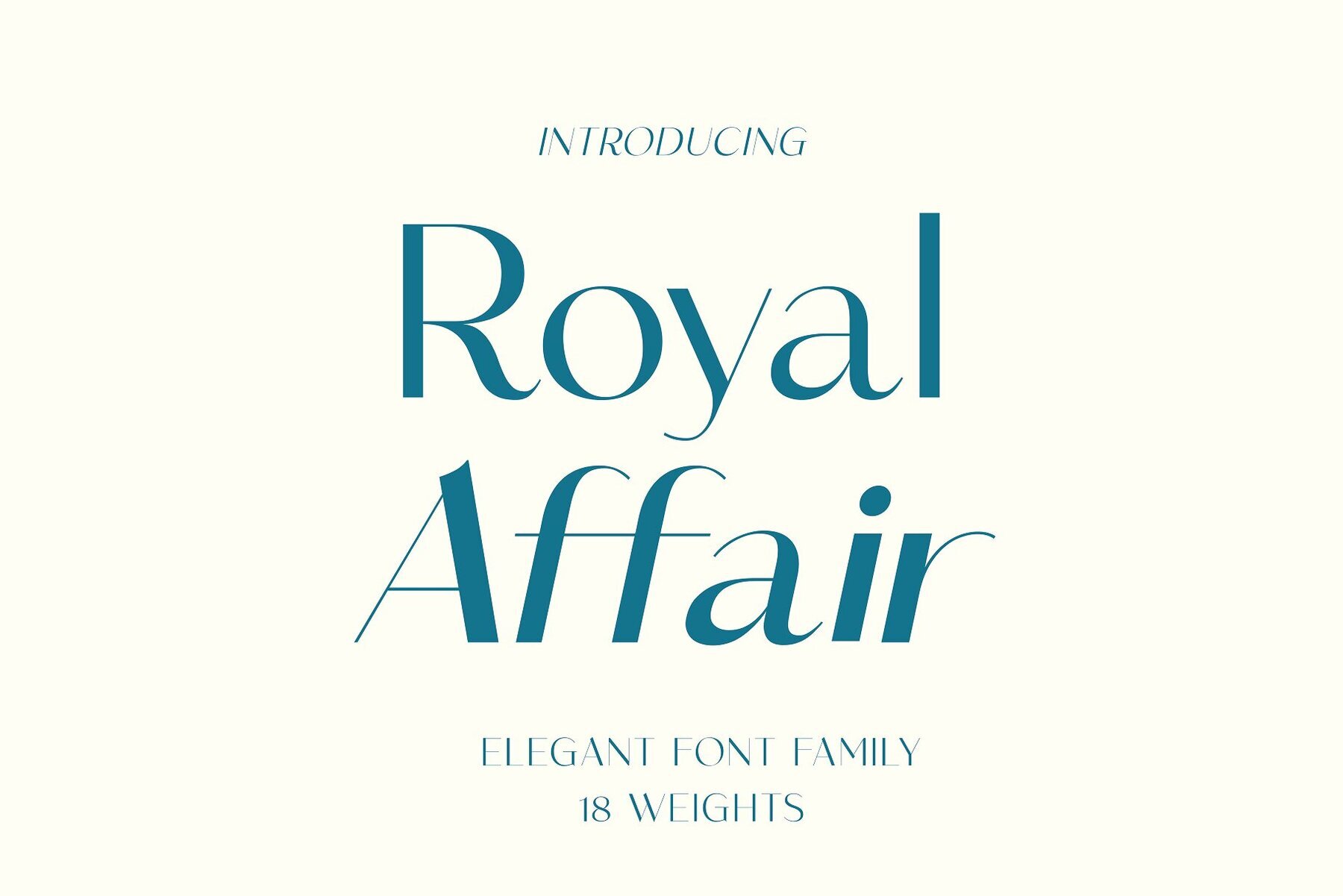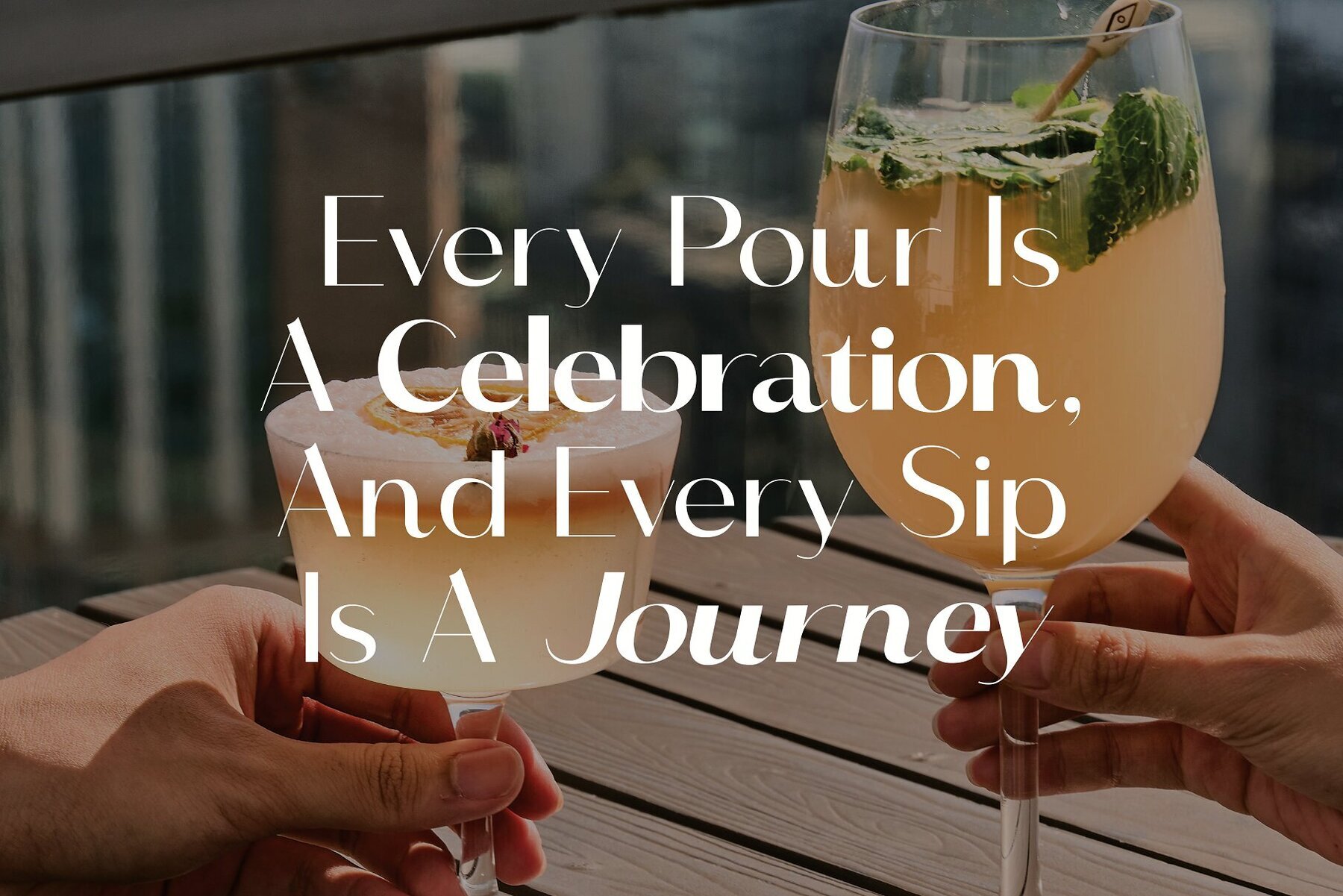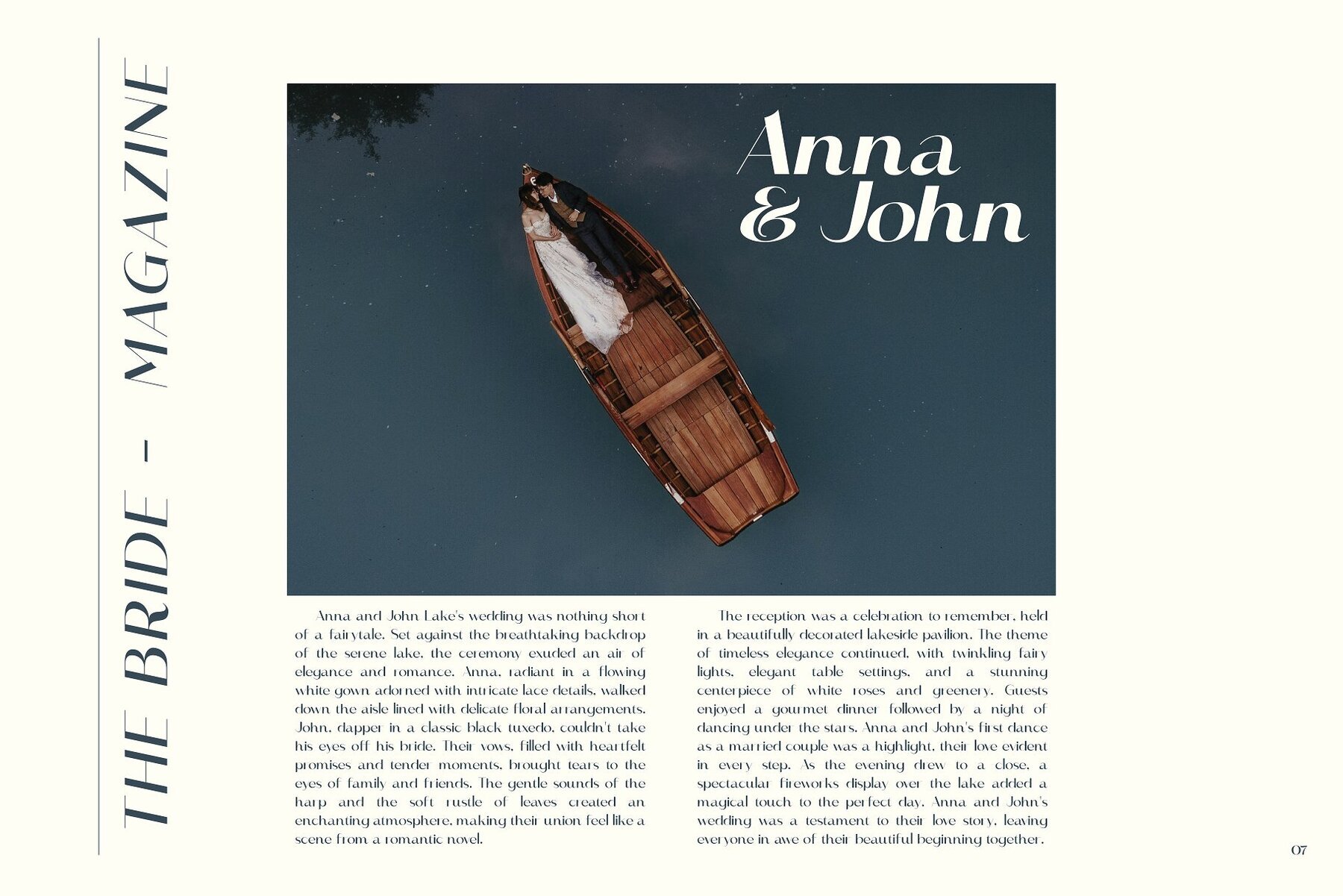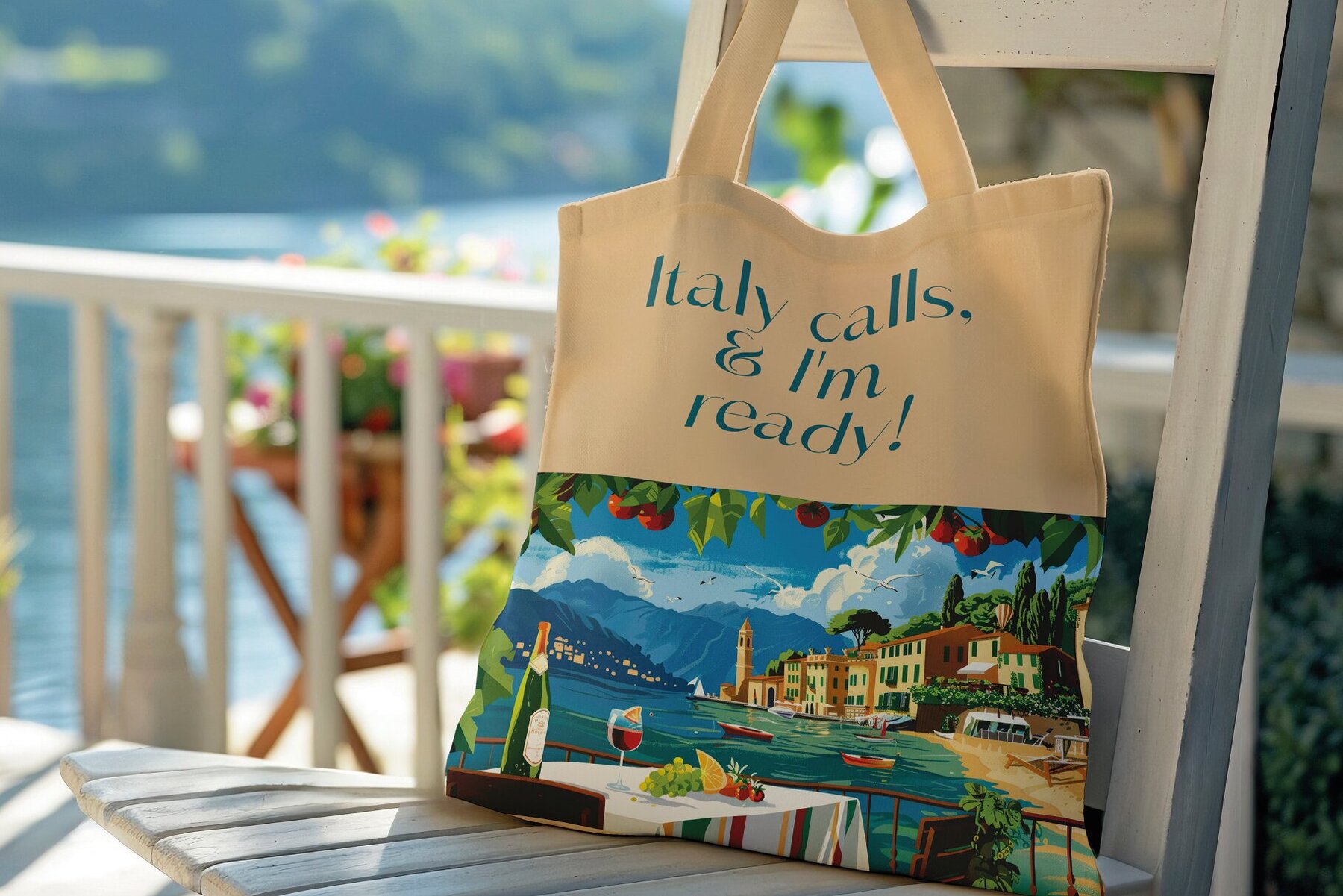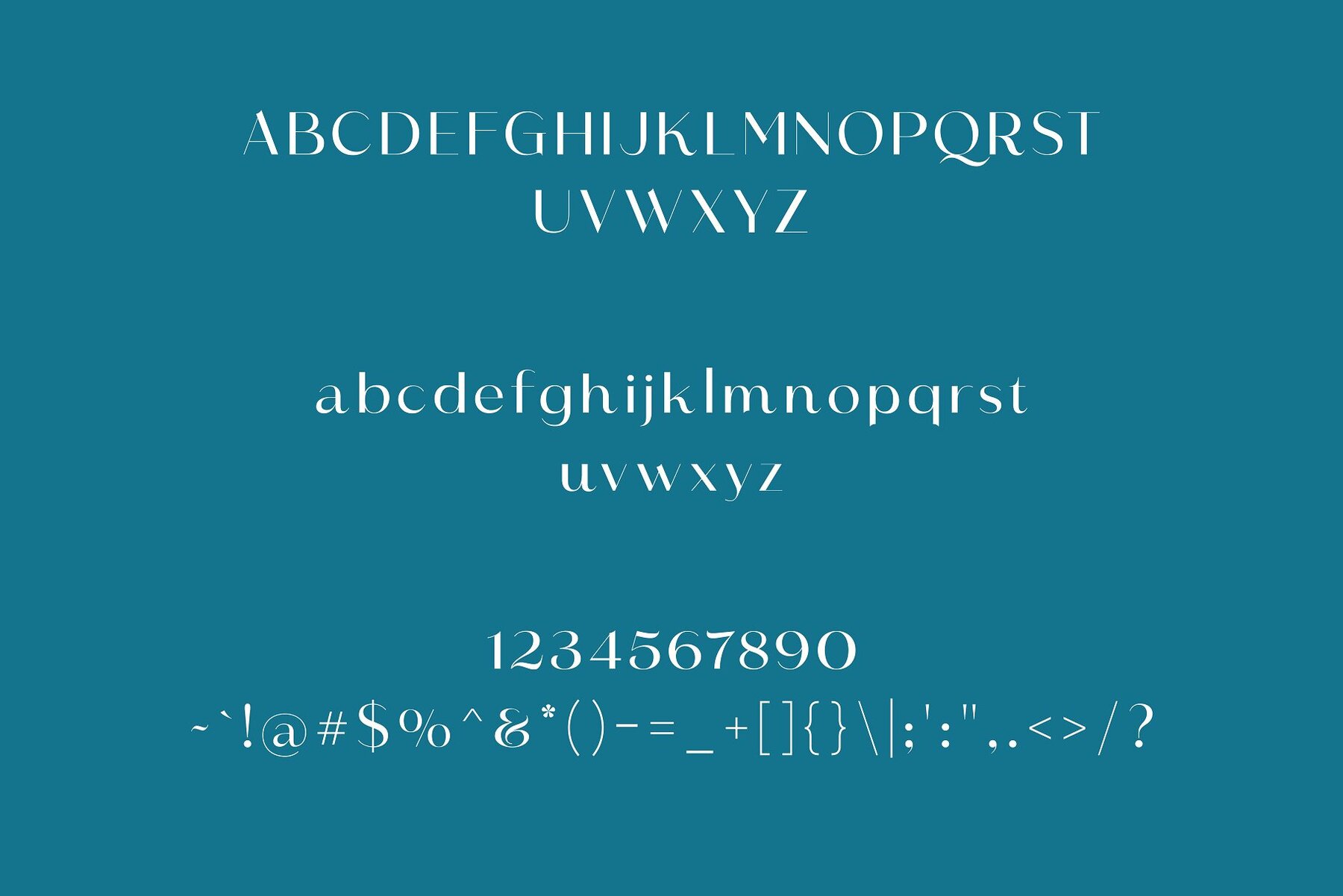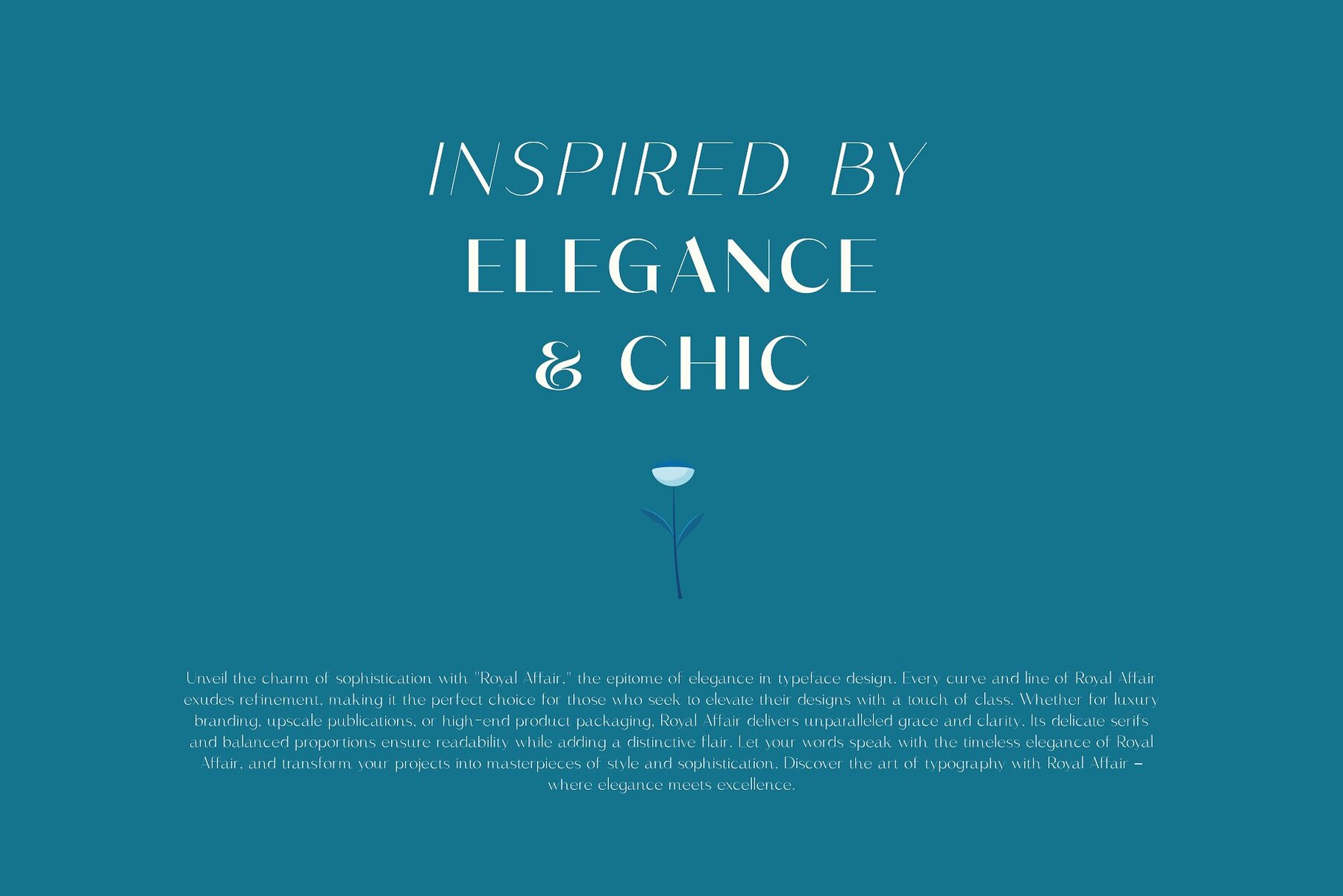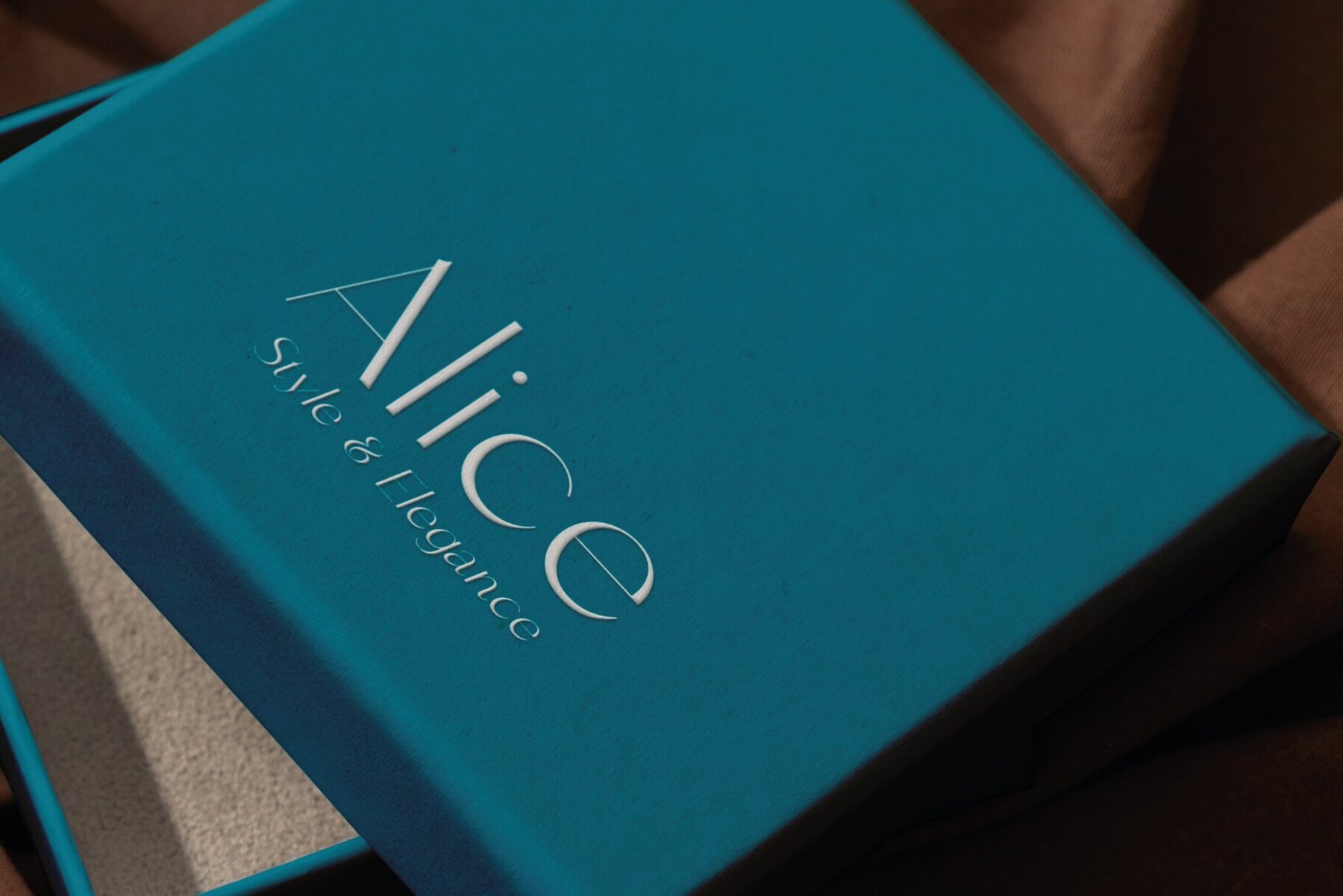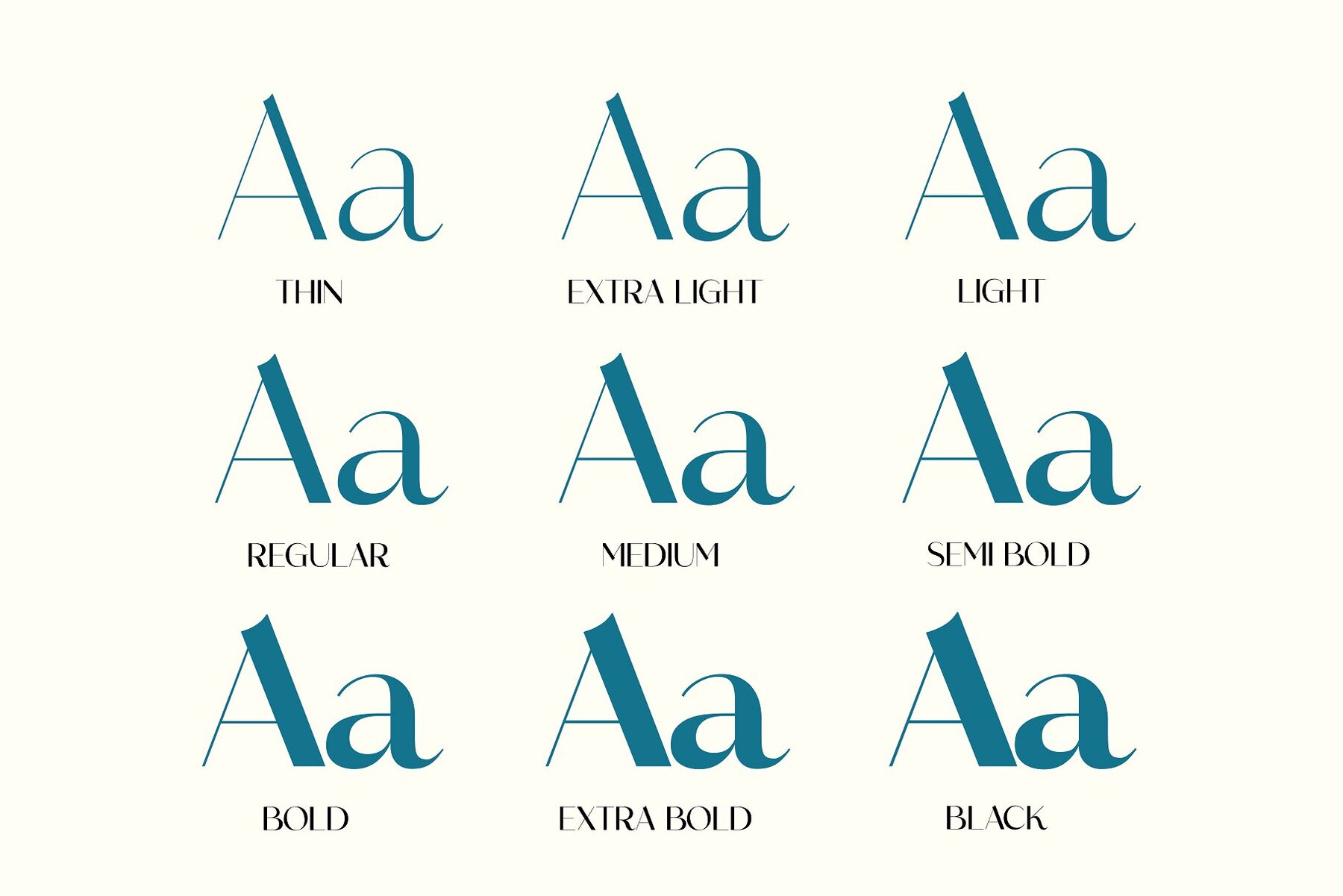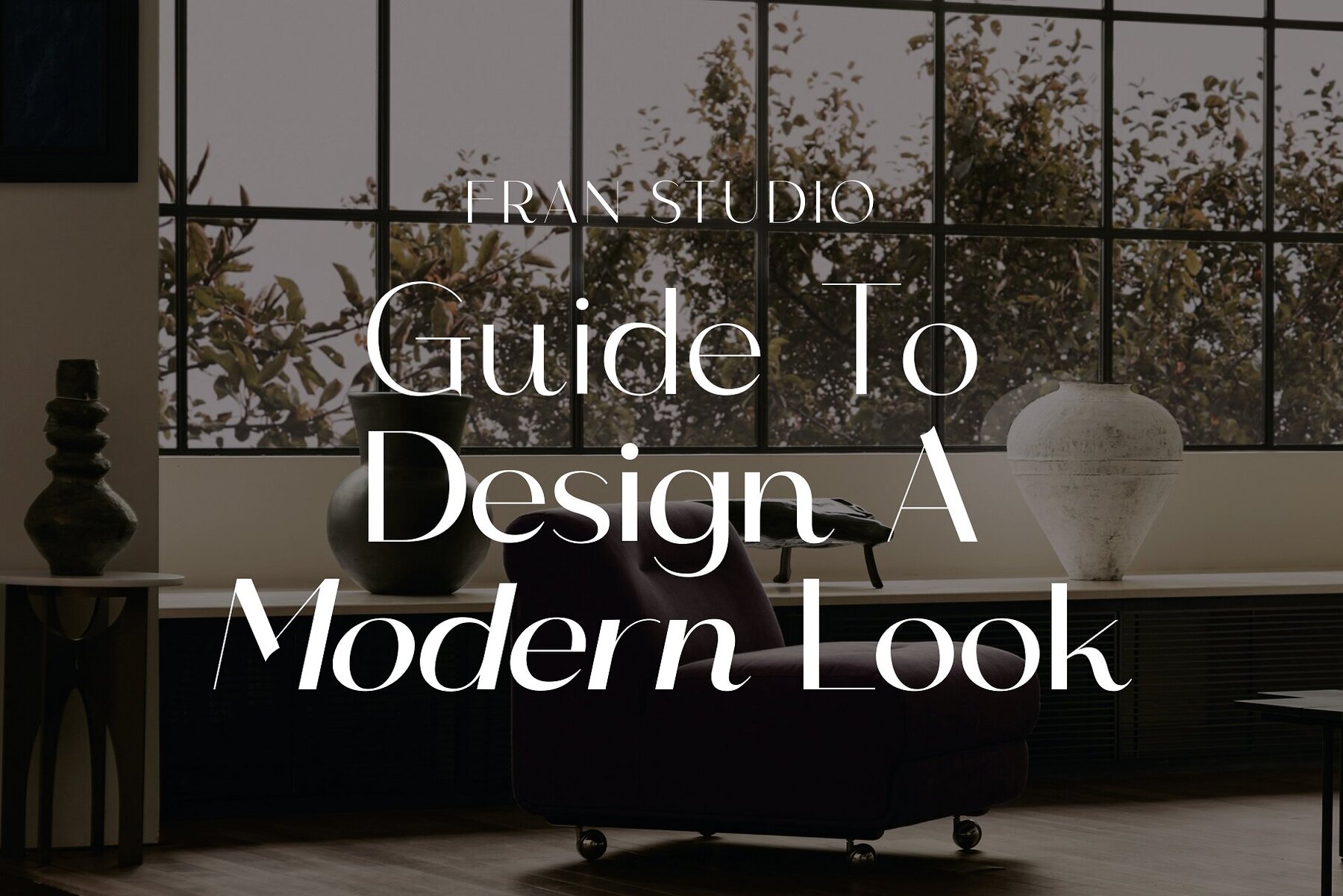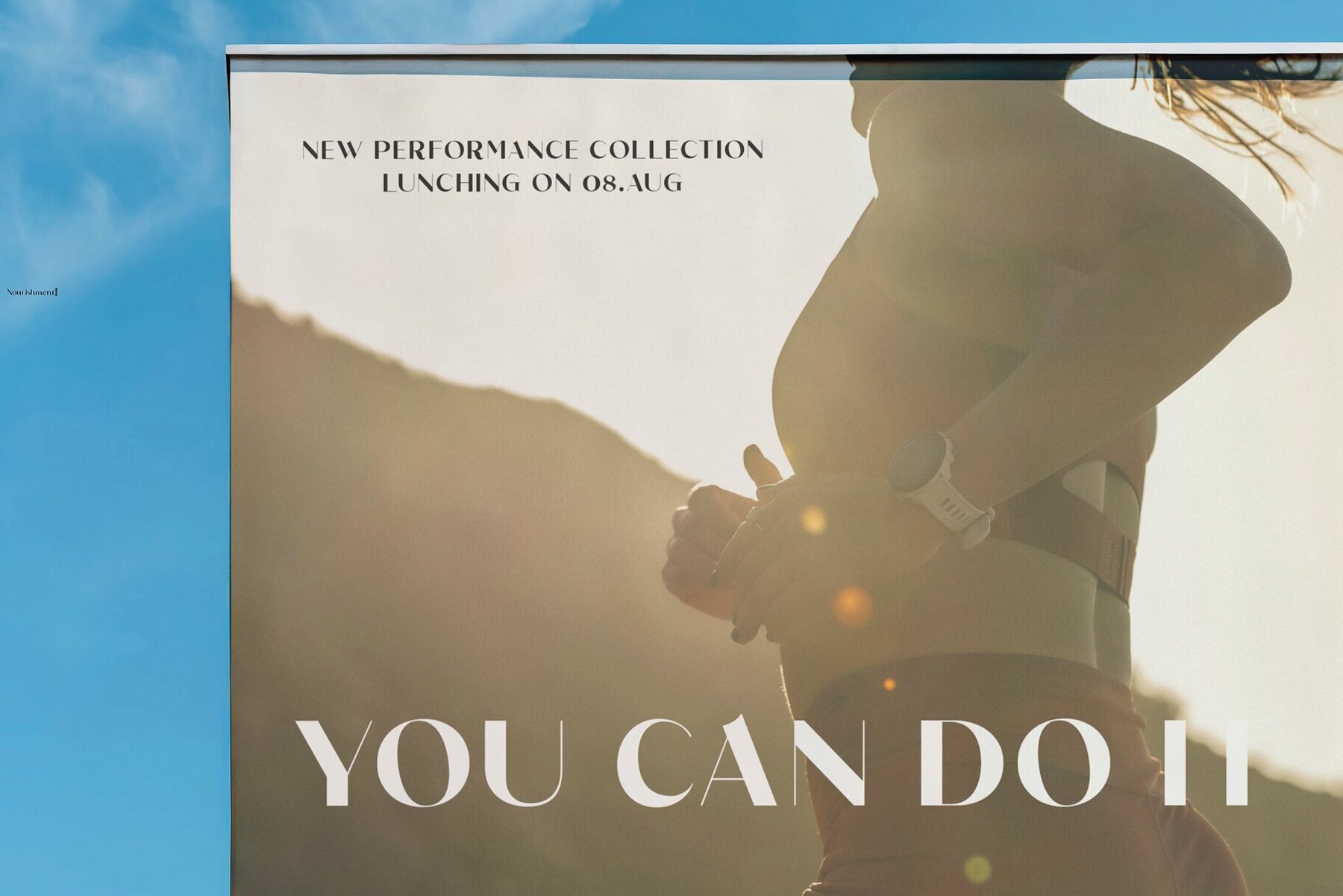
Royal Affair Font
Introducing Royal Affair, a sophisticated wedding typeface embodying elegance and class. Designed to capture the essence of opulence and grace, Royal Affair is perfect for couples seeking to add regal splendor to their special day. Featuring beautifully crafted letterforms with delicate curves and exquisite details, this typeface is ideal for various wedding stationery, from invitations to menus. Its timeless calligraphic style exudes luxury and refinement, enhancing the overall aesthetic of your materials.
Each character in Royal Affair is meticulously designed to ensure perfect harmony and balance, creating a seamless flow. It includes elegant ligatures and alternate characters, offering versatile and personalized design options that stand out. Whether planning a grand royal-themed wedding or an intimate affair, Royal Affair adds a majestic touch. Transform your wedding stationery with Royal Affair, and let it be the crowning jewel of your celebration, making your special day a timeless expression of love and luxury.